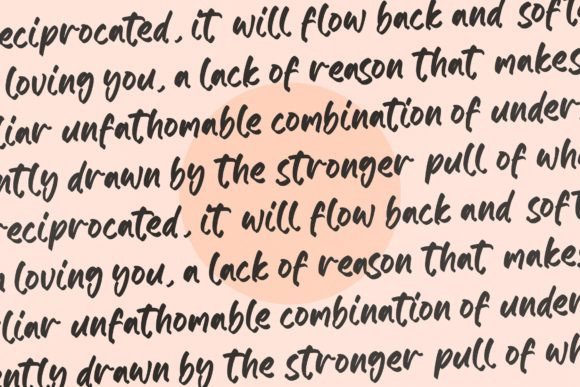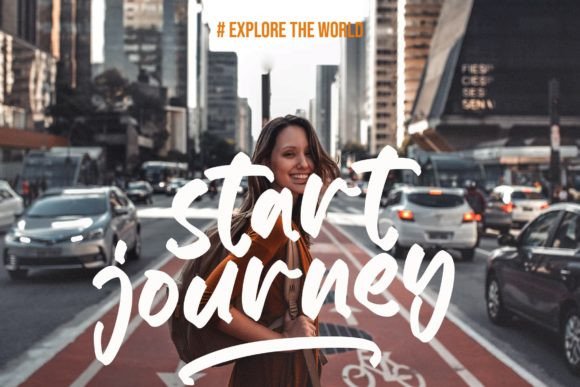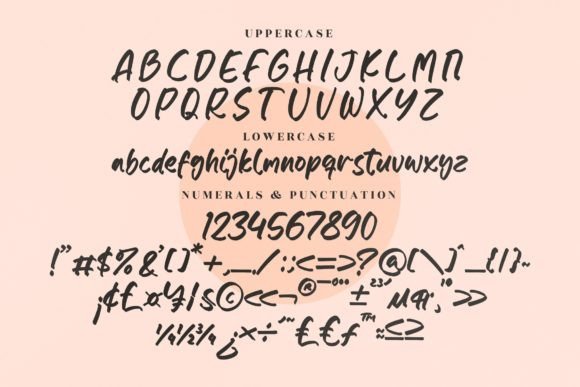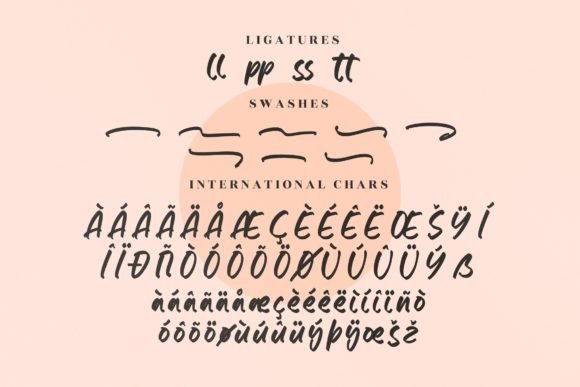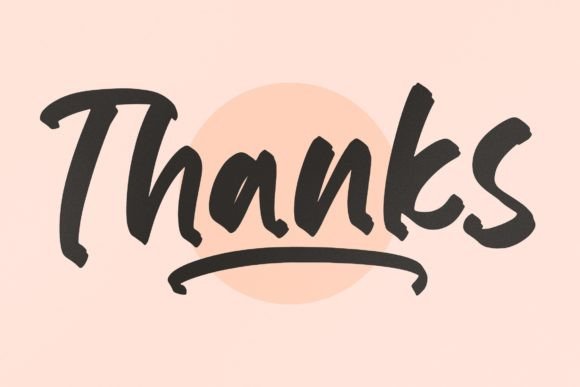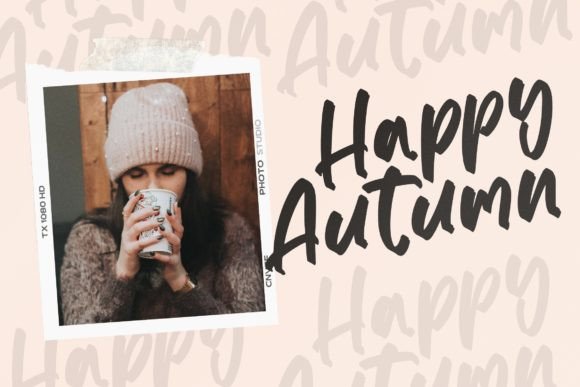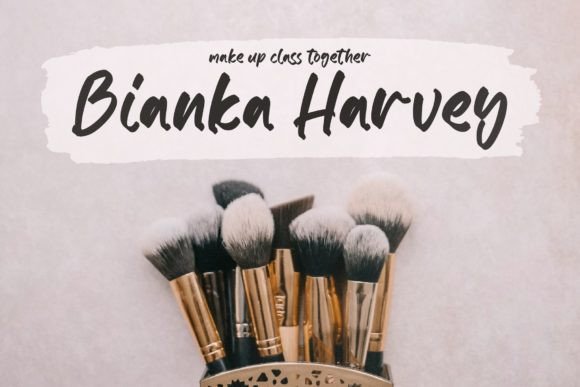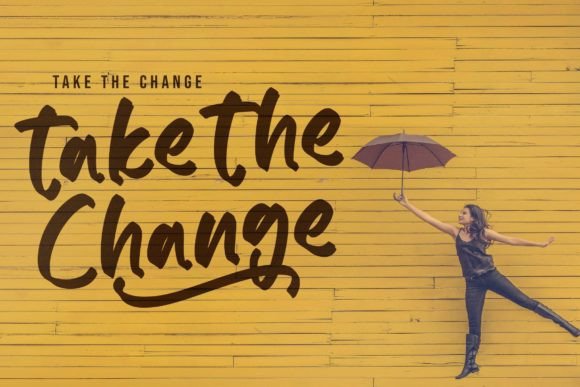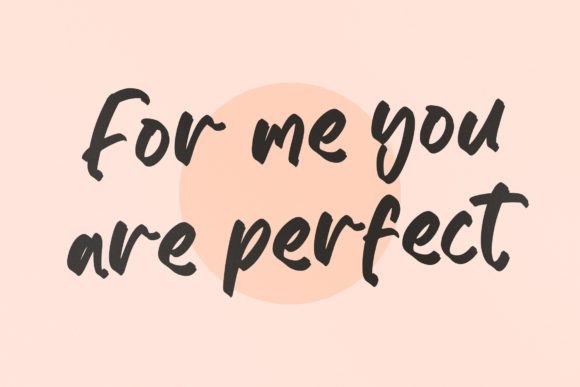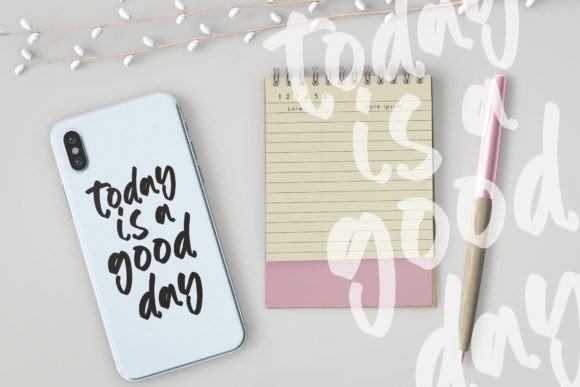
Moody Font
About Moody Font
Moody is a bold and expressive font designed to make a statement with its thick and solid lines, ensuring easy readability. With a balanced fusion of playfulness and professionalism, this font is versatile and suitable for a wide range of design projects. Whether you’re working on something fun and creative or aiming for a more polished and formal look, Moody brings a dynamic quality to your typography.
The bold and expressive nature of Moody makes it stand out, capturing attention and adding a bold visual element to your designs. Its thick lines contribute to a strong and impactful presence, making it particularly well-suited for projects that require a bold and confident typographic style.
The balance between playfulness and professionalism gives Moody the flexibility to adapt to various design contexts. Whether you’re creating eye-catching posters, bold headlines, or professional branding materials, this font can seamlessly transition between playful and serious aesthetics.
The PUA encoding of Moody is a valuable feature, allowing easy access to a variety of glyphs and ligatures. This feature enhances the font’s versatility, enabling you to customize and personalize your designs effortlessly. Experiment with the amazing glyphs and ligatures to add unique and eye-catching elements to your projects.
In summary, Moody is not just a font; it’s a design tool that brings boldness and expressiveness to your typography. Whether you’re working on playful or professional projects, let Moody be the font that makes your designs stand out with its dynamic and impactful style. Explore its versatility and discover how it can elevate a wide range of design projects with its bold and expressive character.